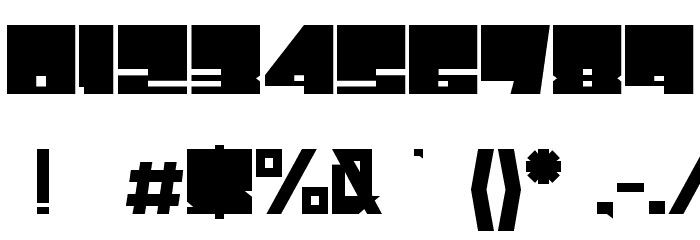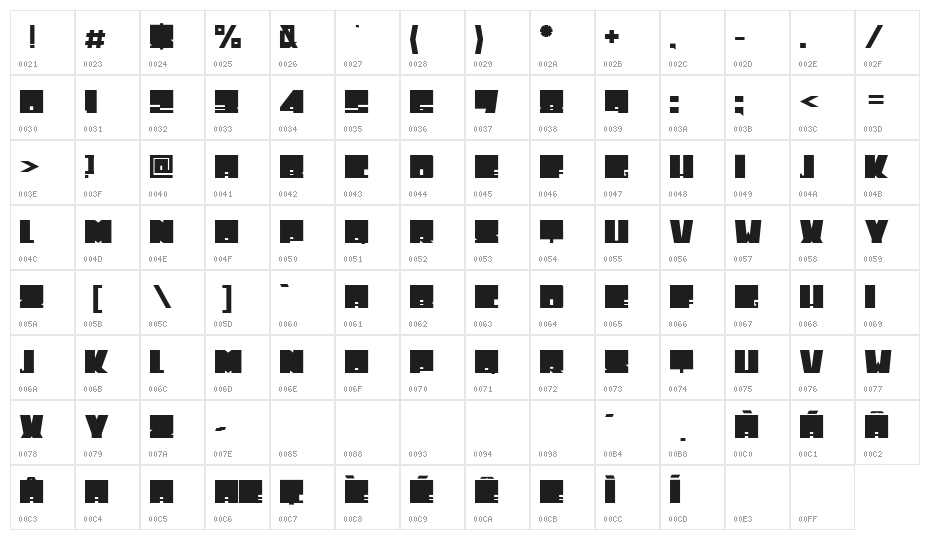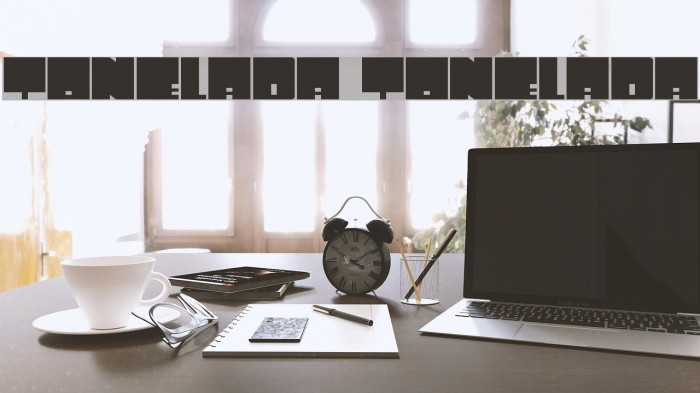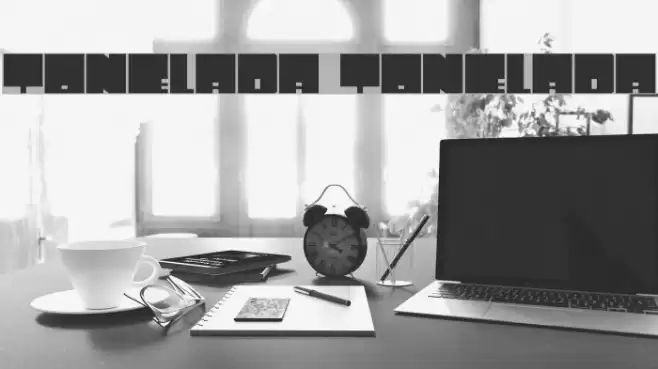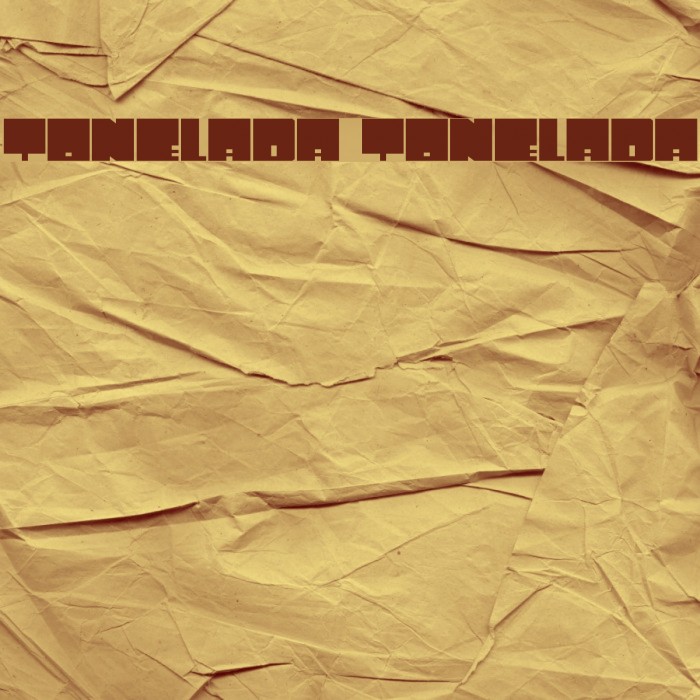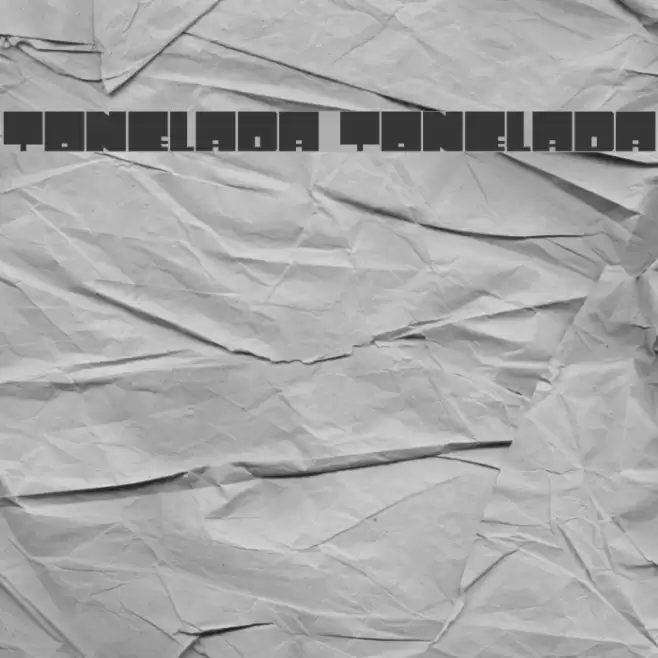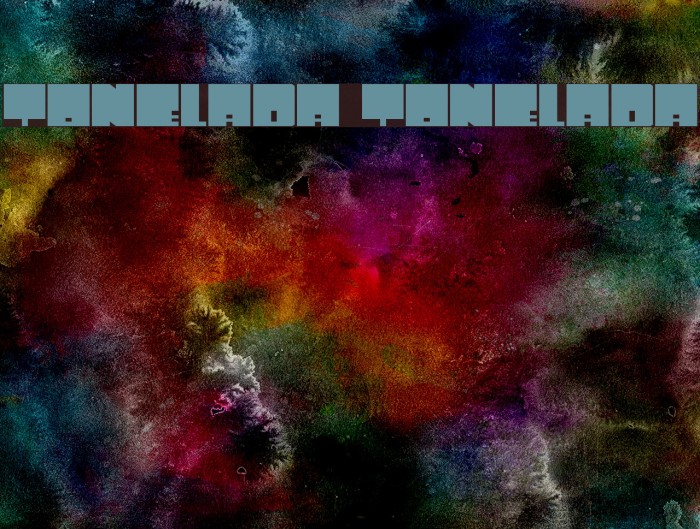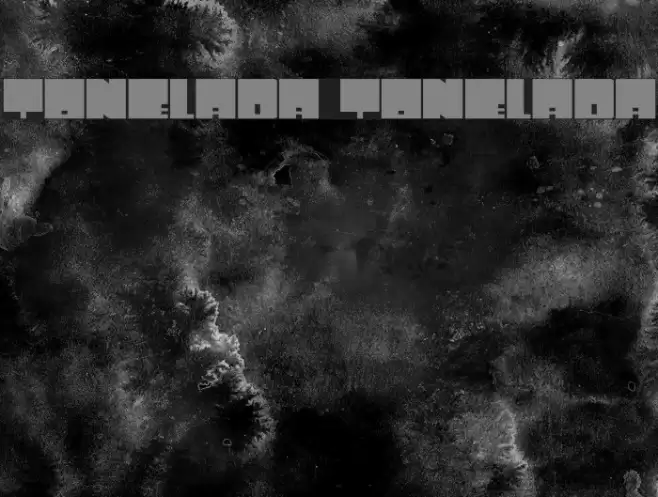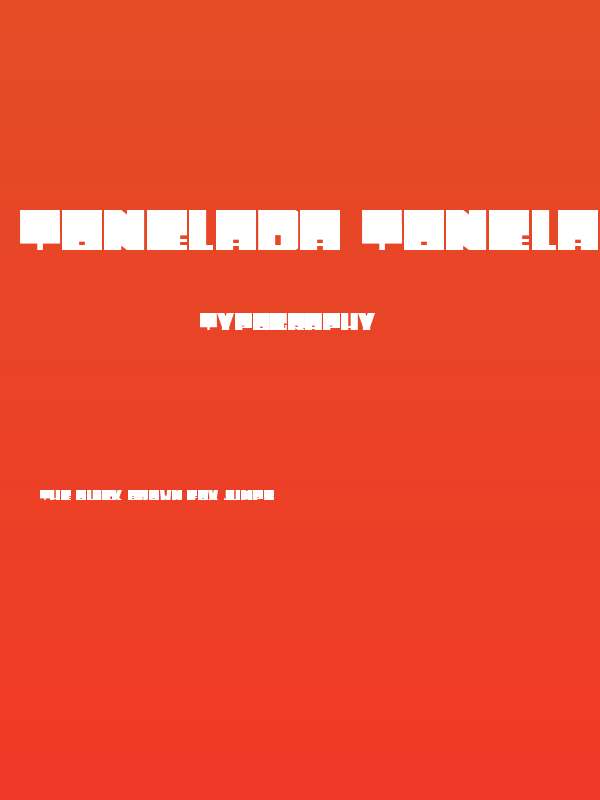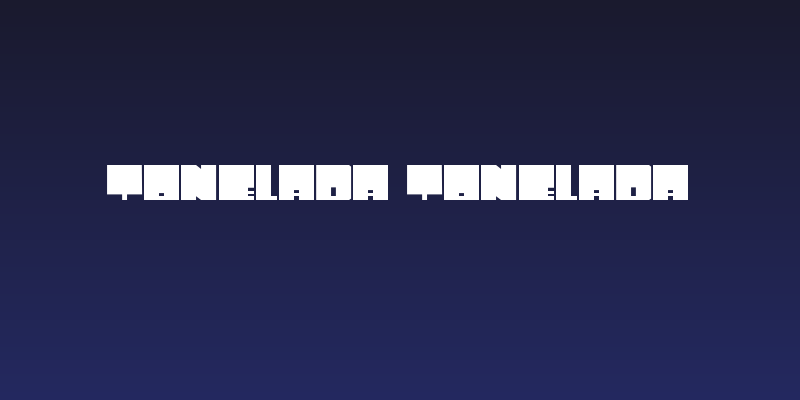
Tonelada Font
Tonelada Description
This font features a bold and blocky design, characterized by its heavy, geometric shapes and strong presence. The letters are uniformly thick, with minimal contrast in stroke width, creating a powerful and impactful appearance. The uppercase and lowercase letters maintain a consistent style, with sharp angles and a squared-off look. The numbers and special characters follow the same bold and angular design, ensuring a cohesive look across all characters. This font is ideal for projects that require a strong visual impact and a modern, industrial feel.
| Proposed Projects | Ideal for posters, headlines, logos, and branding materials that require a bold and modern aesthetic. |